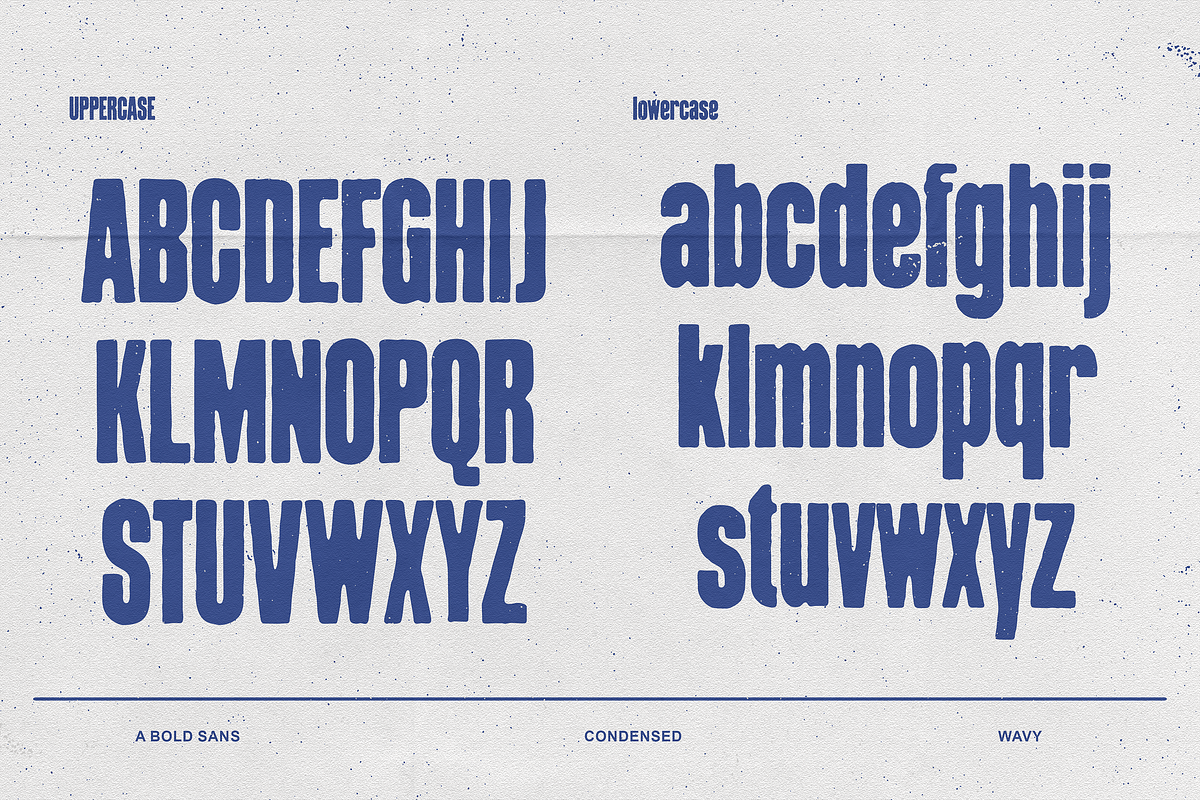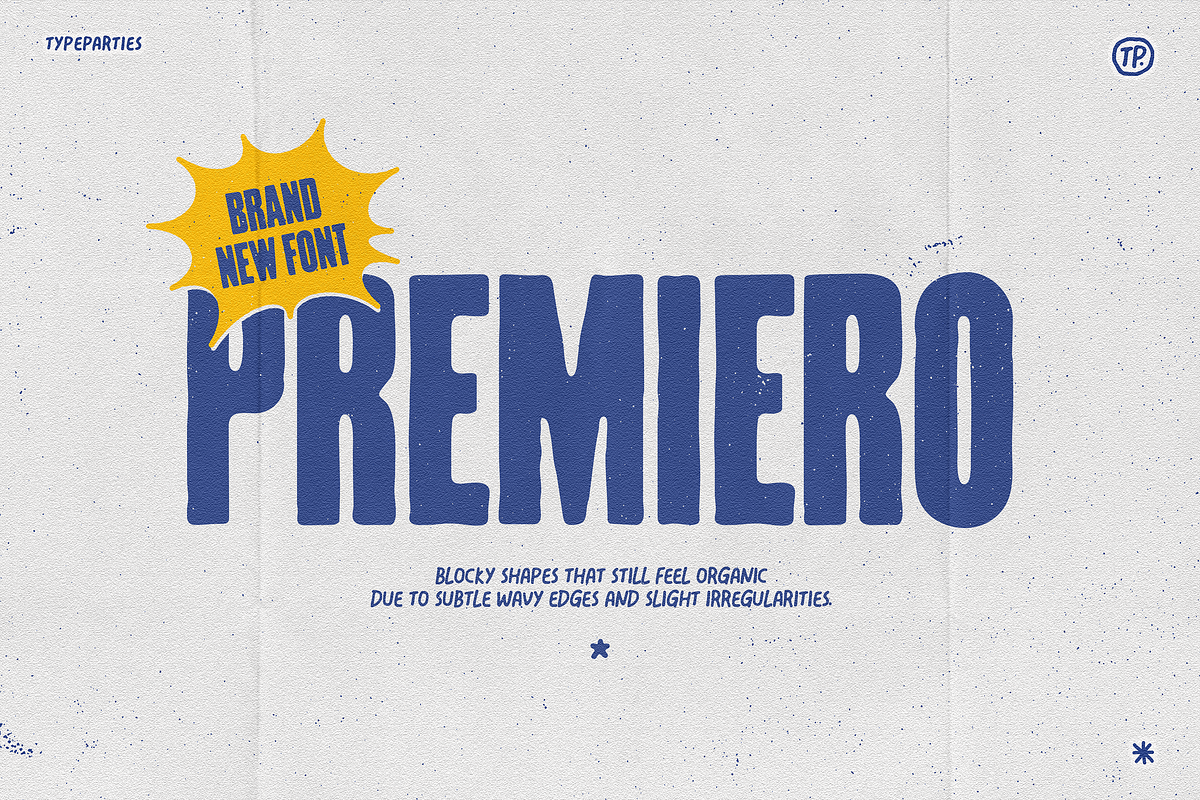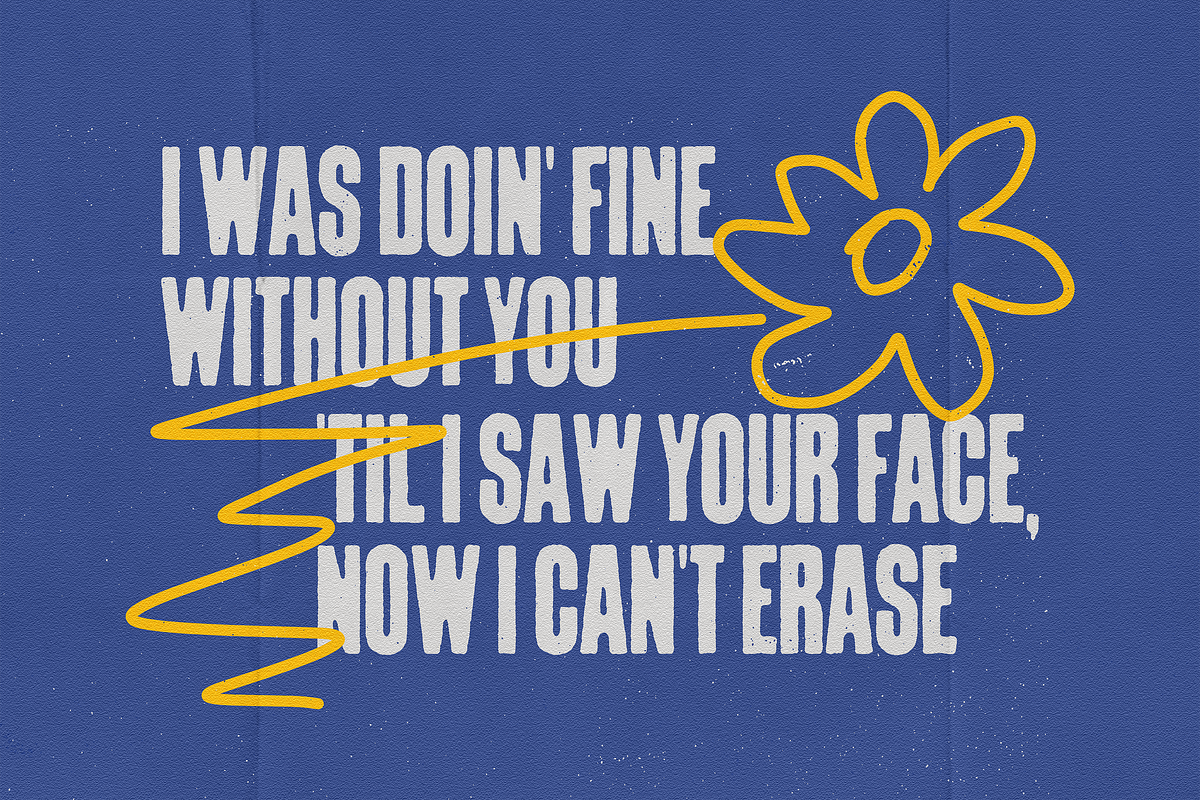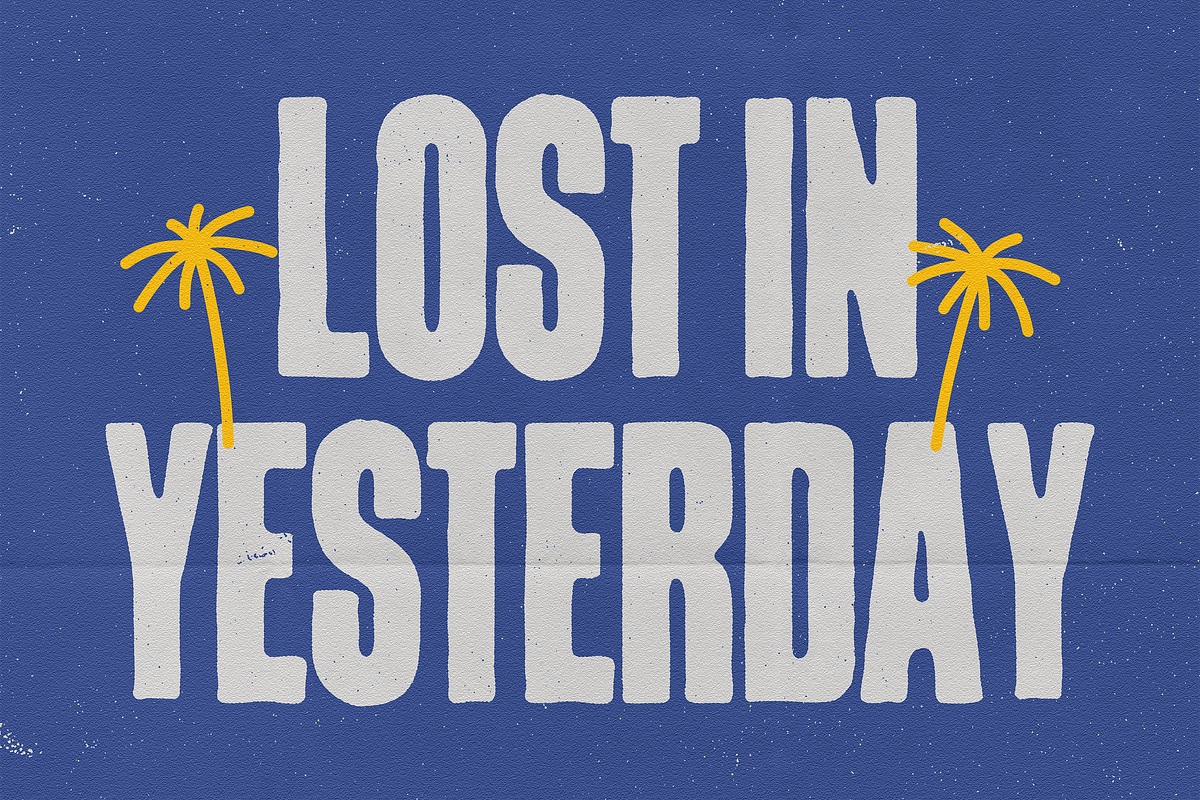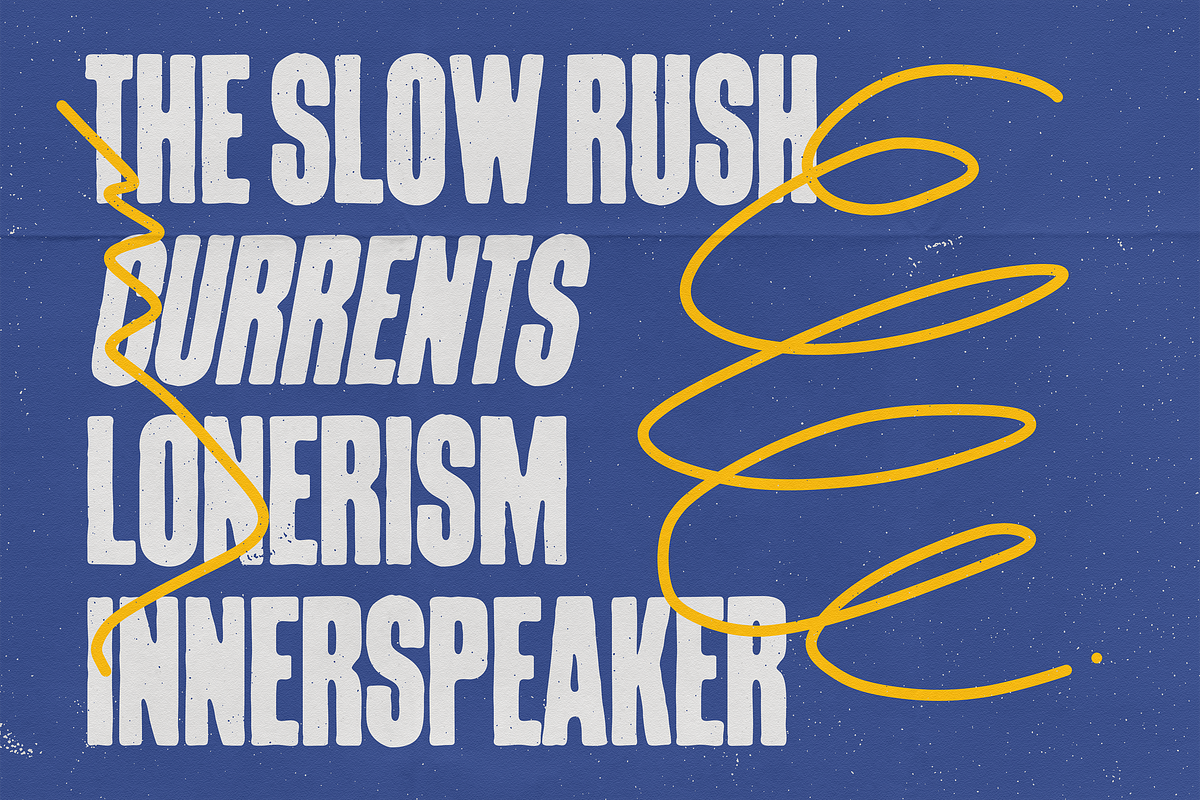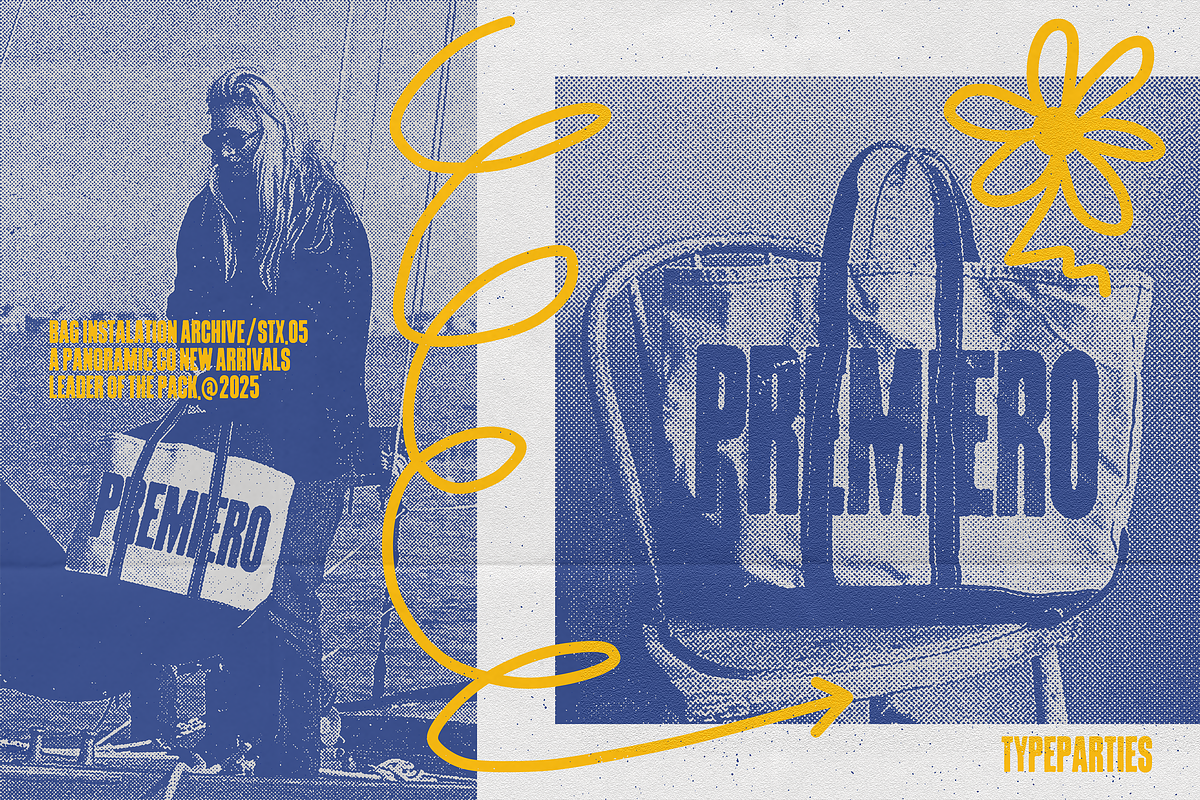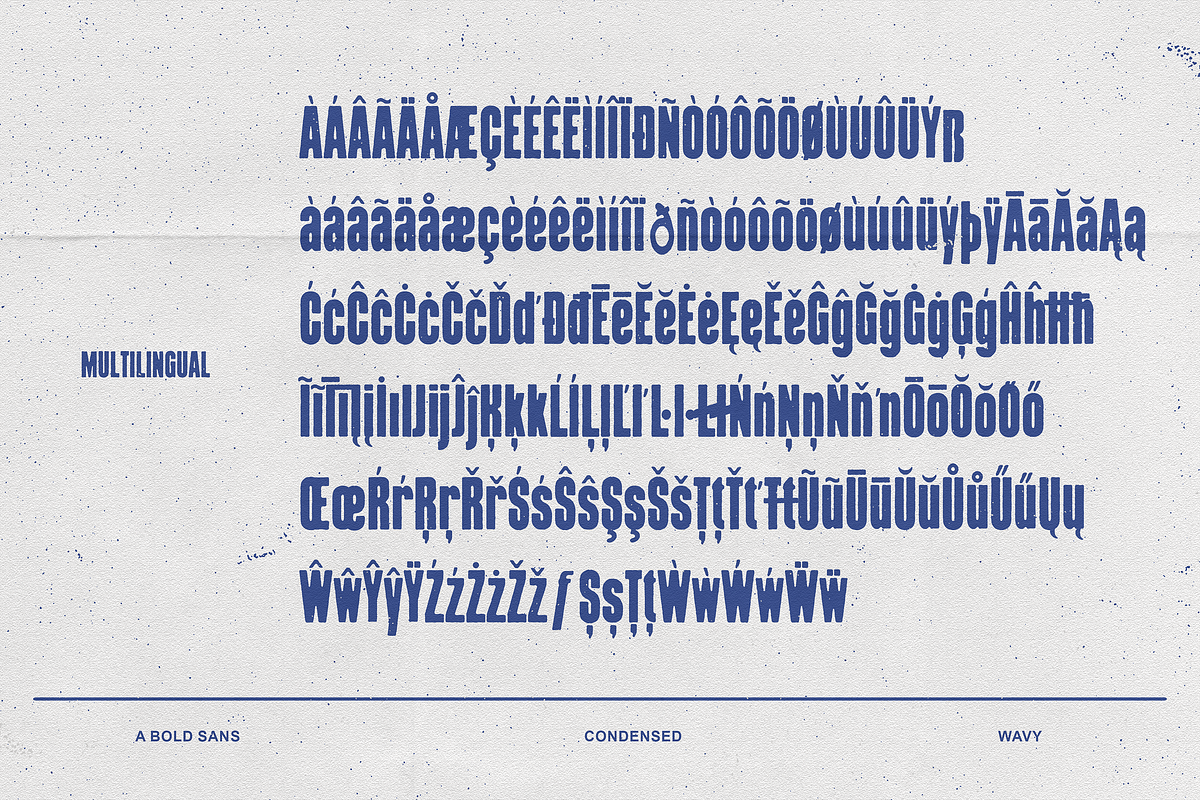
Premiero - Bold Condensed Font
This font in your image has a bold, condensed, and playful look. It's all-caps with thick, blocky shapes that still feel organic due to subtle wavy edges and slight irregularities. The distressed texture — little speckles and roughness inside the letters — gives it a gritty, vintage feel, almost like something you’d see on retro posters, outdoor festivals, or adventure-themed designs. The solid white lettering against the deep green background makes it super eye-catching and rugged, giving a vibe of energy and authenticity.